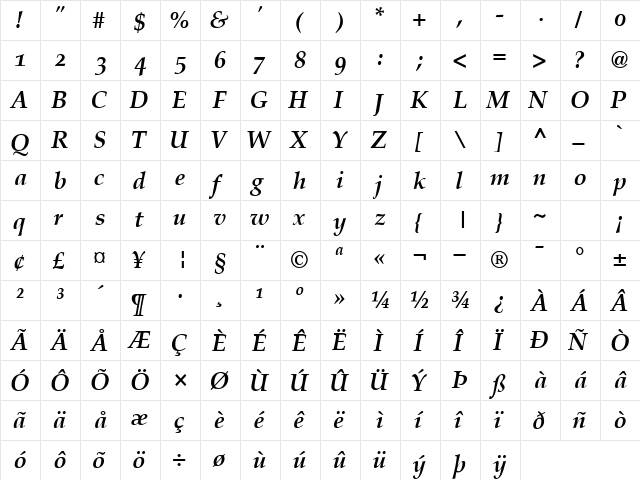
CriteriaOSSSK BoldItalic
Design Context for CriteriaOSSSK Typeface
CriteriaOSSSK takes a measured approach to typography — its balanced proportions and neutral character make it a reliable workhorse for both digital and print work. The slanted form adds forward momentum and visual energy. The heavy weight commands attention and anchors typographic hierarchies.
Pro Tip: Use CriteriaOSSSK for emphasis, pull quotes, and subheadings where its slanted energy can add rhythm to the layout.